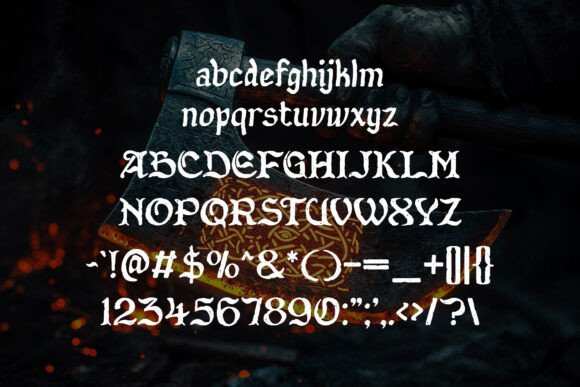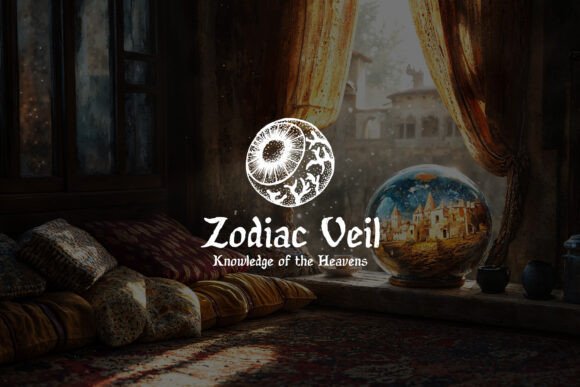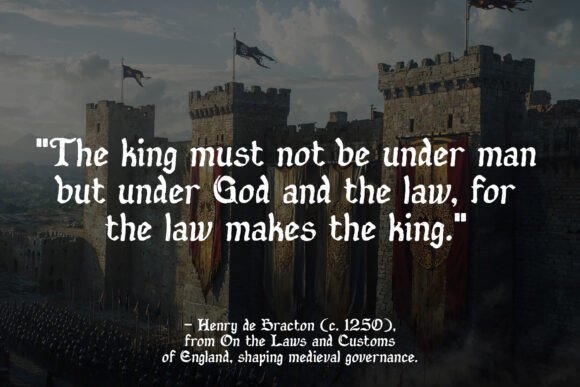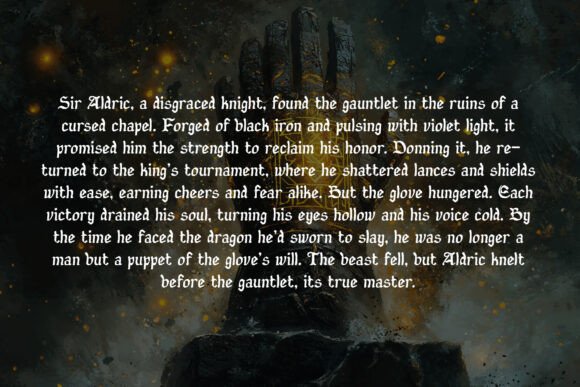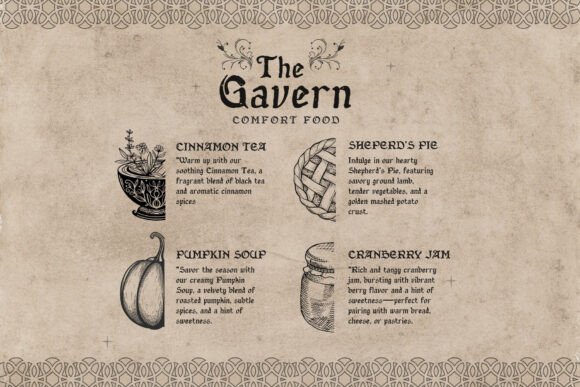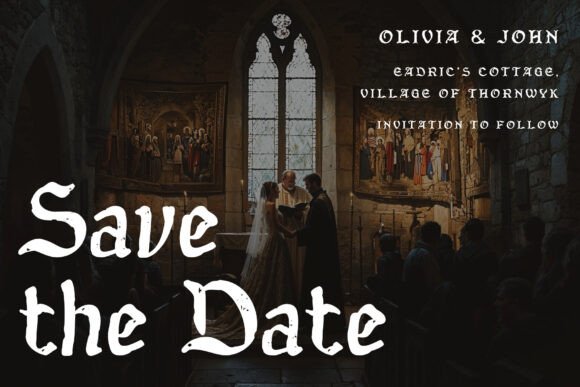
Unleashing the Mystique of the Middle Ages: A Deep Dive into Elder Scroll Font
Imagine yourself hunched over a worktable, surrounded by scattered sketches, half-finished designs, and the faint scent of coffee. You’re working on a project that requires a font with a touch of antiquity, a dash of mystique, and a pinch of medieval flair. But, as you sift through your font library, nothing seems quite right. That was me, until I stumbled upon Elder Scroll Font, a handwritten typeface that transported me to a world of forgotten tomes and legendary tales.
A Masterfully Crafted Typeface
Elder Scroll Font is a beautifully crafted handwritten typeface that evokes the mystique of ancient manuscripts, weathered scrolls, and forgotten kingdoms. Designed to bring a touch of the Middle Ages to your designs, this font is perfect for antique, medieval, Old English, and fantasy-based projects. With its unique blend of elegance and ruggedness, Elder Scroll Font is sure to add a touch of magic to your creations.
So, what do I love about Elder Scroll Font? Here are a few things that make it stand out:
- ✨ Elegant and refined, yet rugged and weathered: This font strikes the perfect balance between sophistication and ruggedness.
- ✅ Highly legible: Despite its medieval inspiration, Elder Scroll Font is remarkably easy to read, even at smaller sizes.
- 💫 Unique character: This font has a distinct personality that sets it apart from more generic typefaces.
Of course, no font is perfect, and Elder Scroll Font has a few quirks to keep in mind:
- ⚠️ Limited use of modern typographic features: As a handwritten font, Elder Scroll Font doesn’t have all the bells and whistles of more modern typefaces.
- 🤔 May require some manual kerning: Depending on your design, you may need to adjust the kerning to get the most out of this font.
The Story Behind Elder Scroll Font
Elder Scroll Font was designed by a team of typographers who wanted to capture the essence of the Middle Ages. Inspired by ancient manuscripts, weathered scrolls, and forgotten kingdoms, they crafted a font that’s both elegant and rugged. The result is a typeface that’s perfect for designers, crafters, and creative hobbyists who want to add a touch of magic to their creations.
| What is Elder Scroll Font? | Elder Scroll Font is a handwritten typeface inspired by the Middle Ages, perfect for antique, medieval, Old English, and fantasy-based projects. |
| Is Elder Scroll Font suitable for body text? | While Elder Scroll Font is highly legible, it’s best suited for headlines, titles, and short paragraphs. For longer body text, you may want to choose a more traditional font. |
| Does Elder Scroll Font support OpenType features? | Yes, Elder Scroll Font supports OpenType features, including stylistic alternates, glyphs, and other advanced typographic features. |